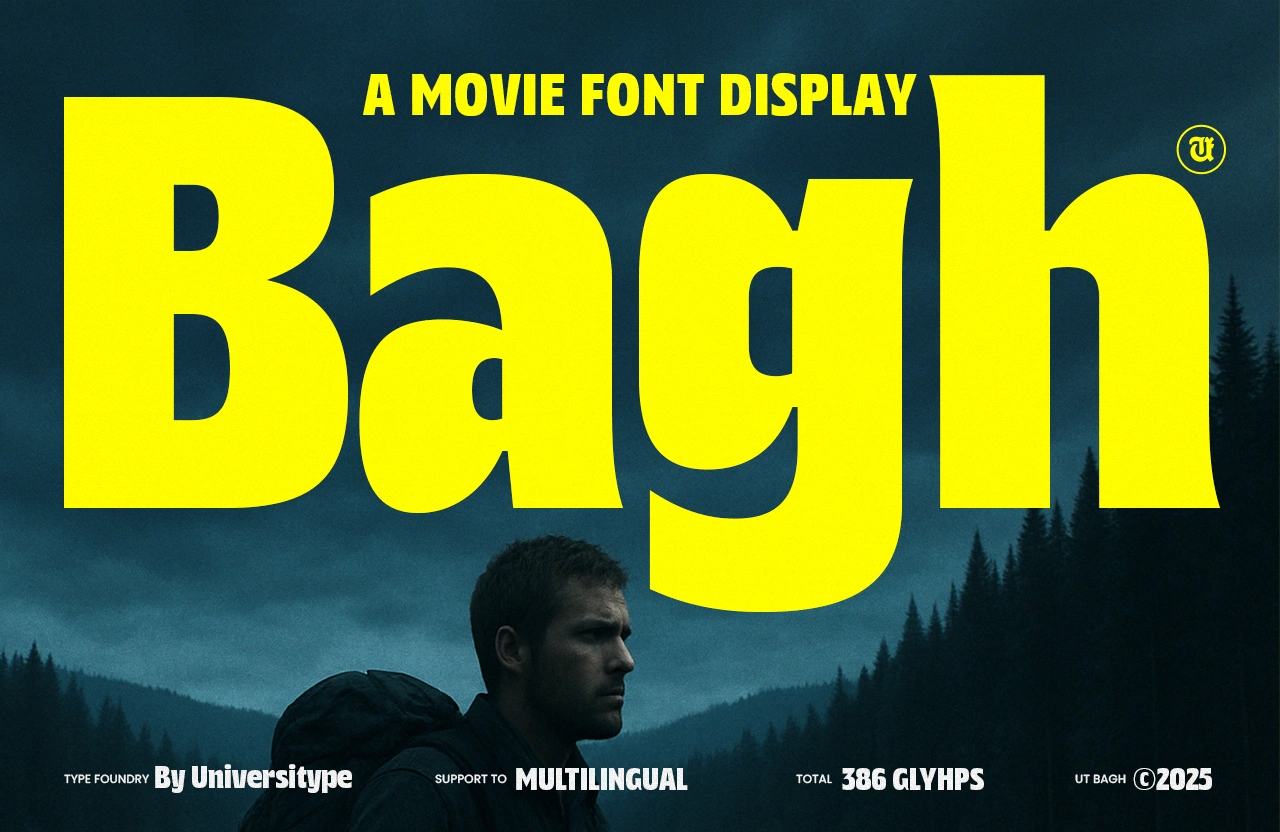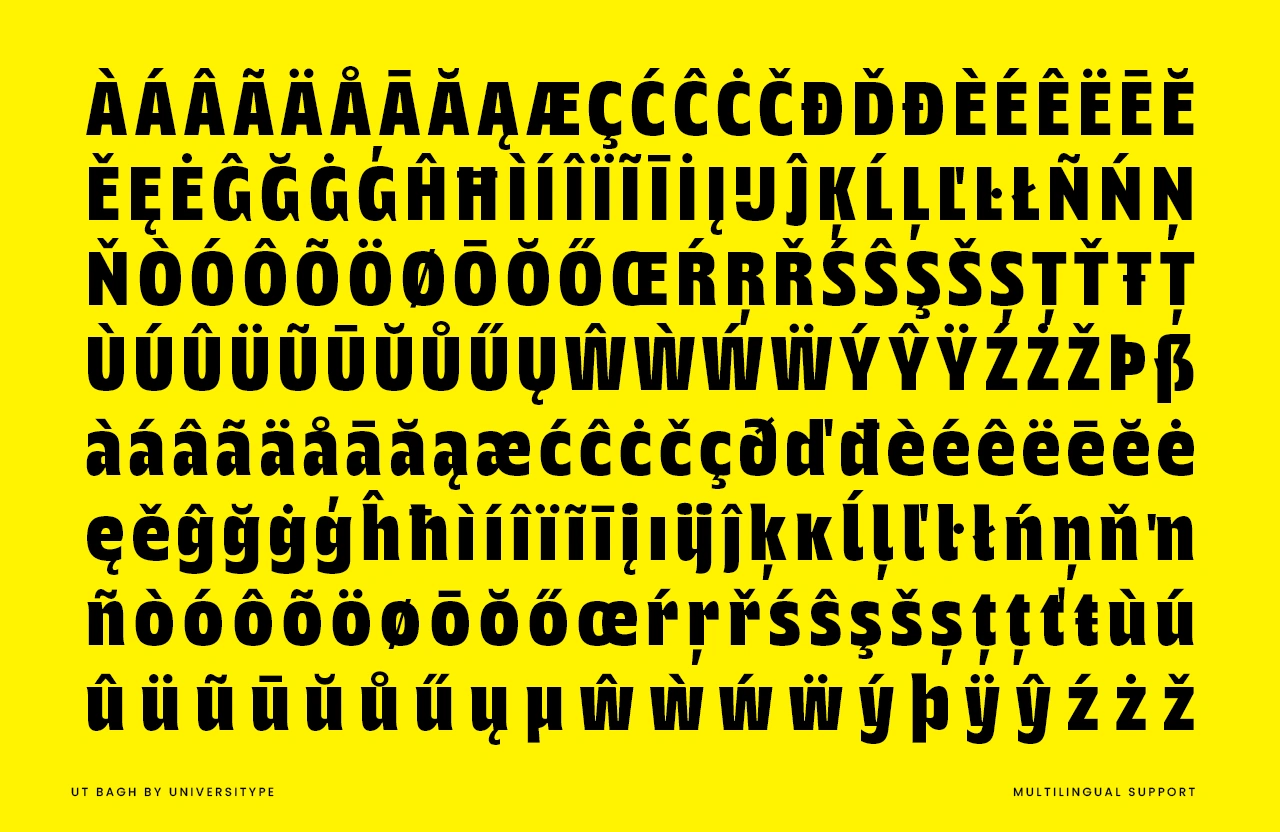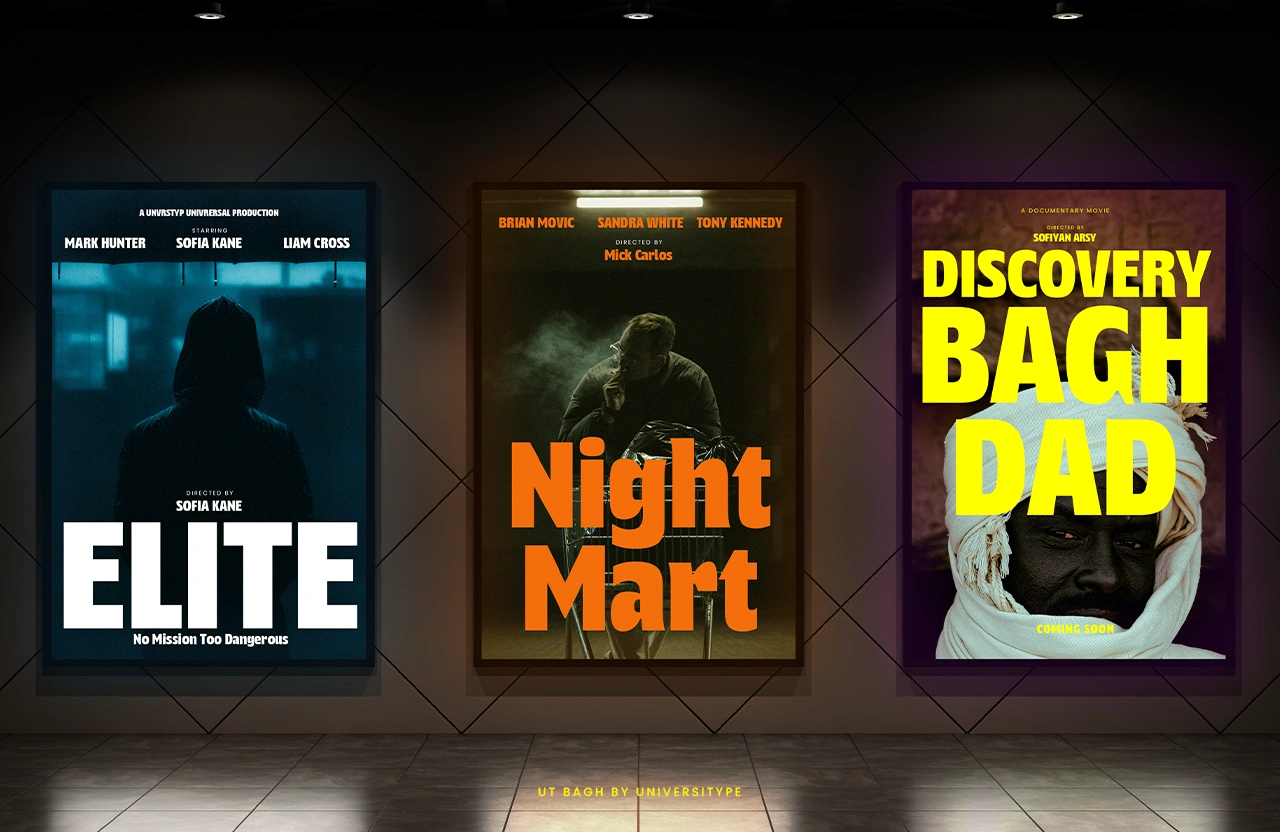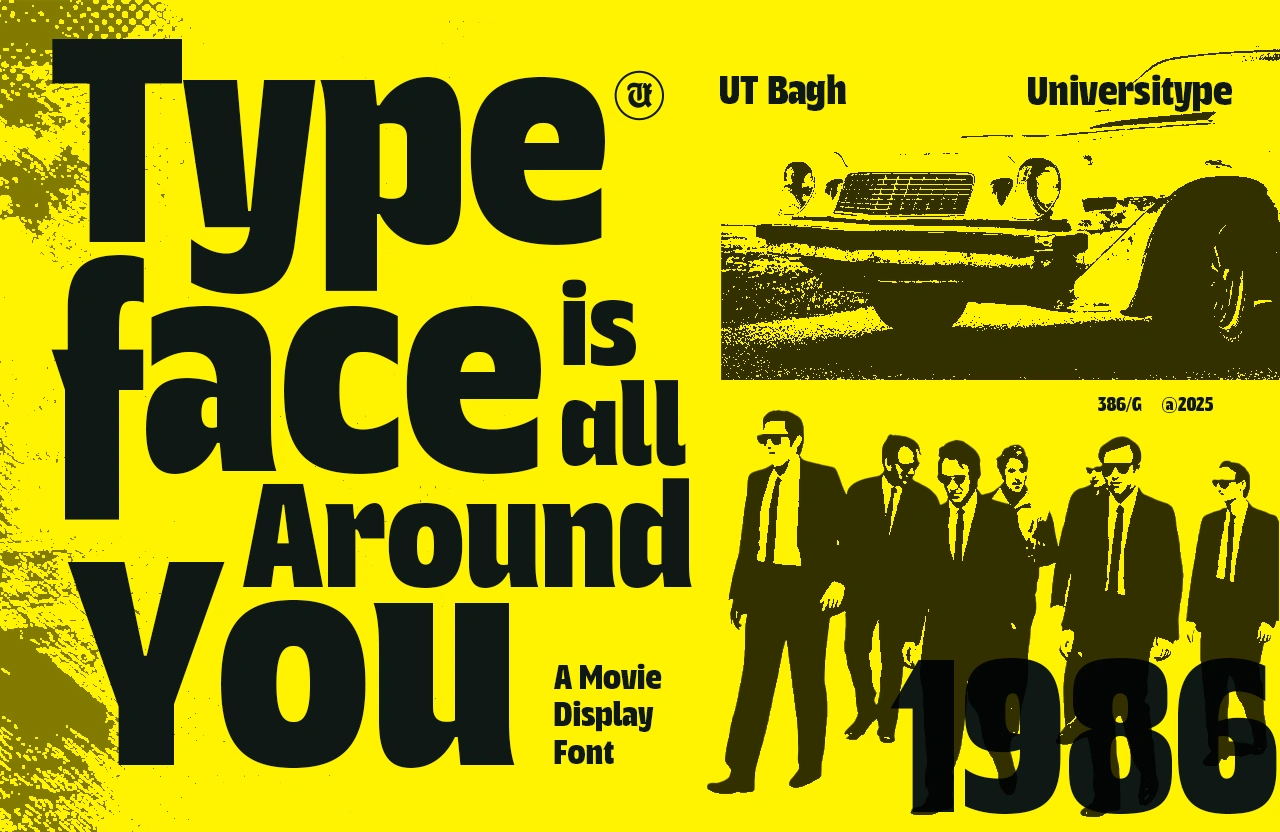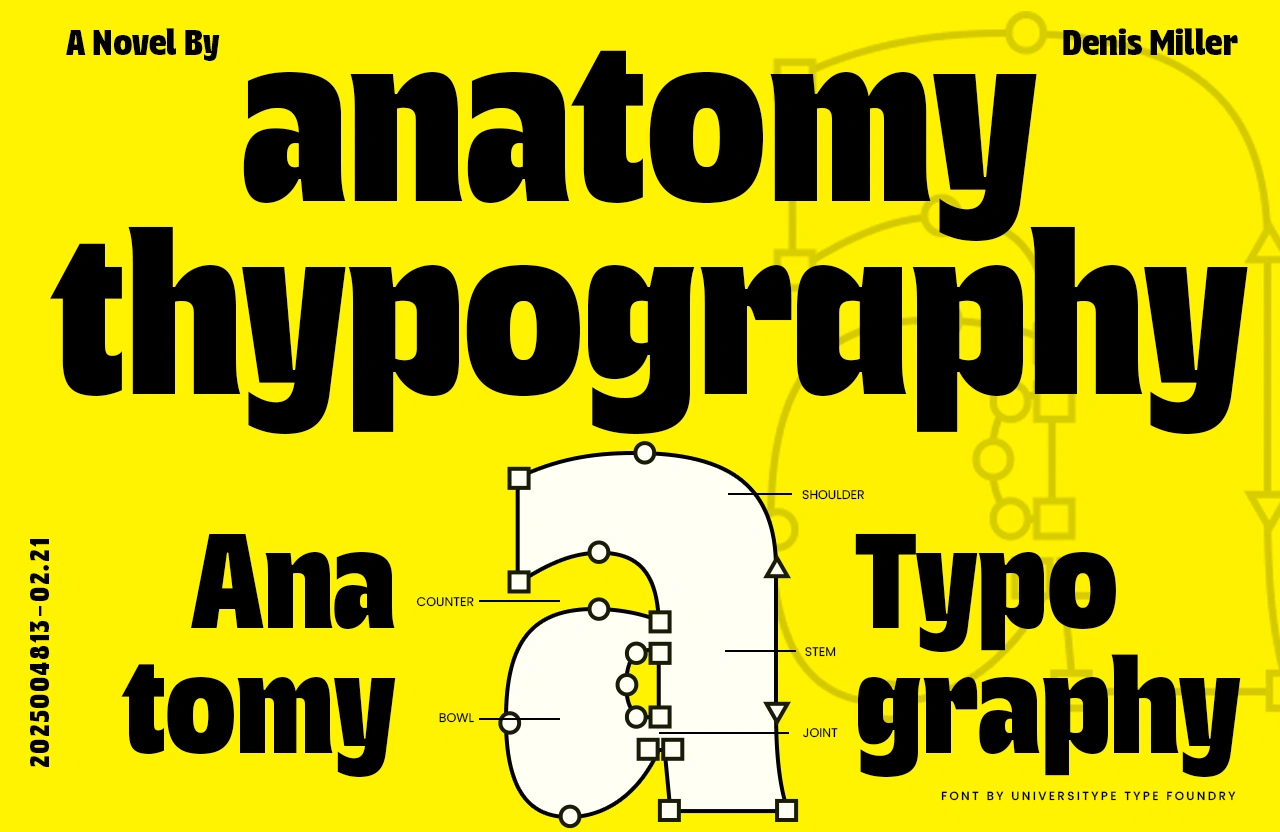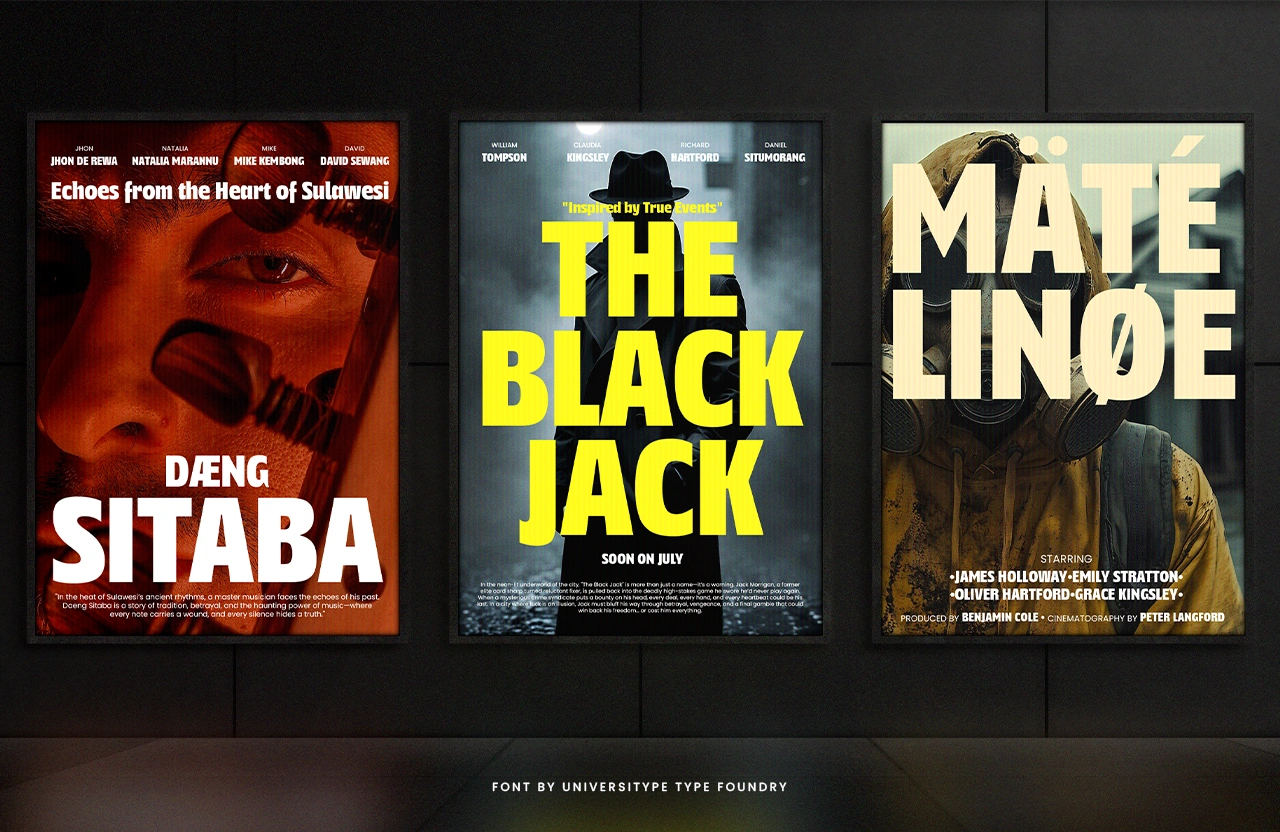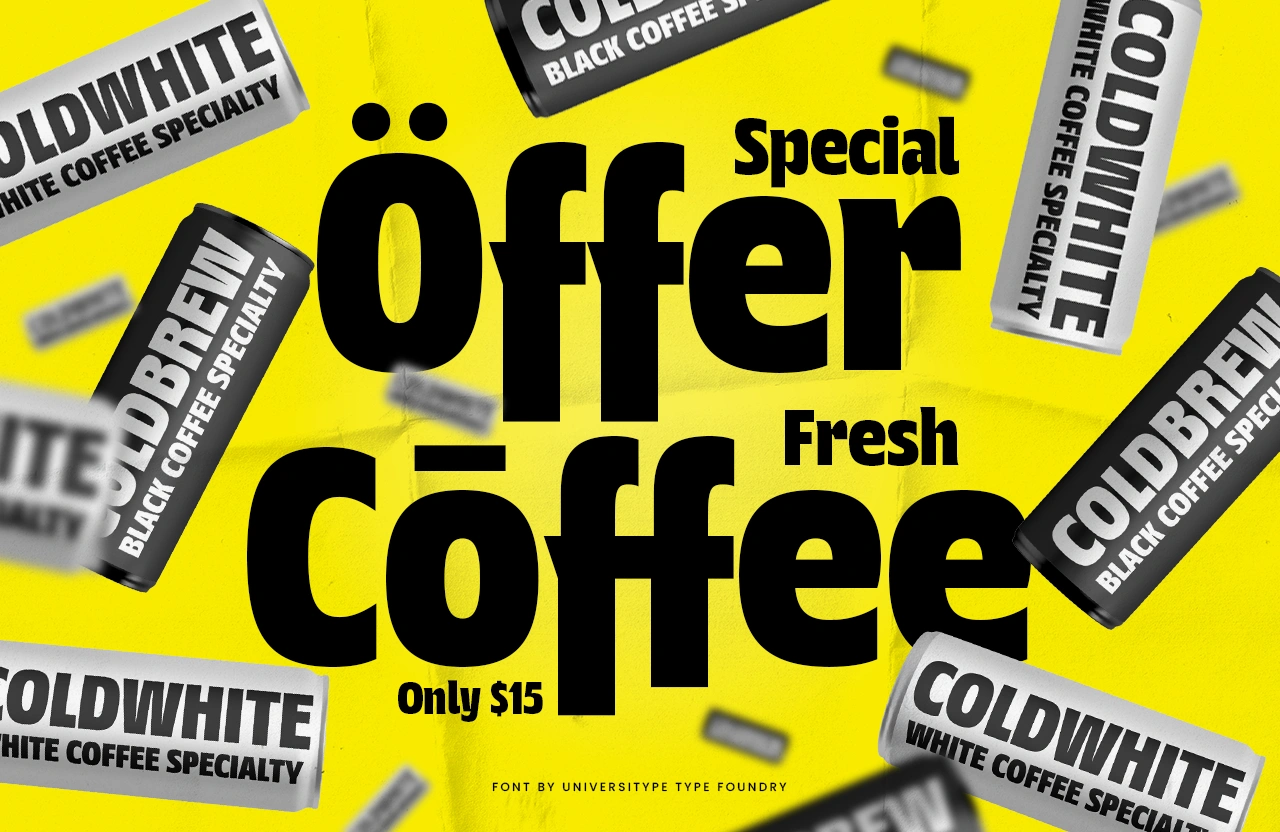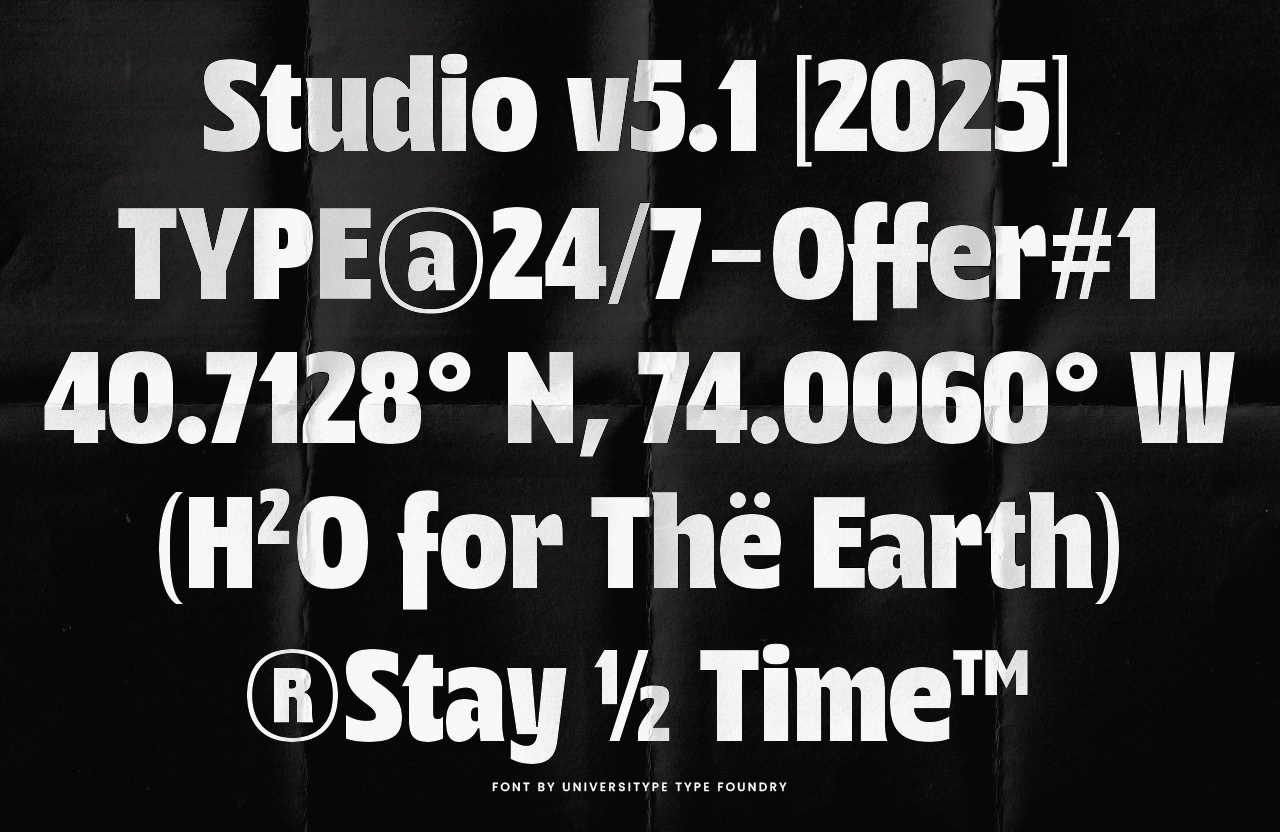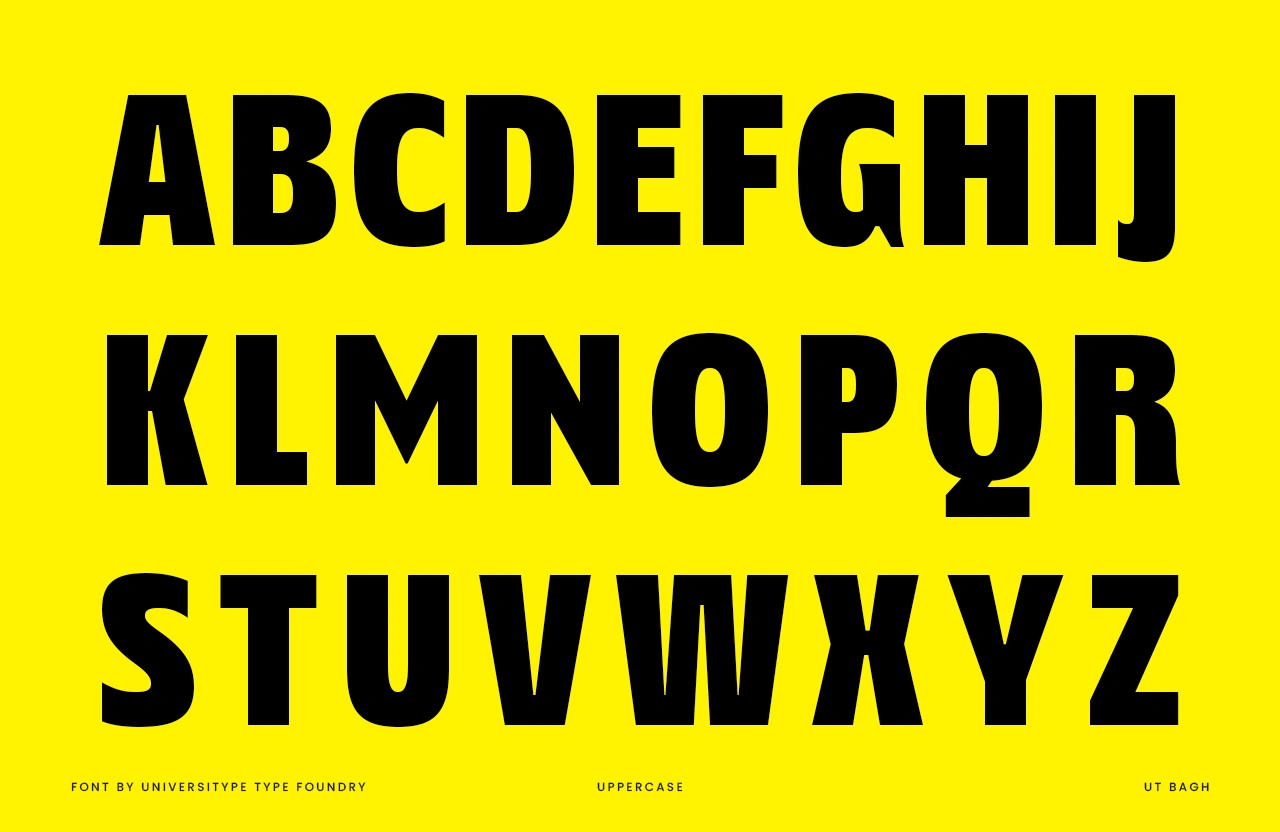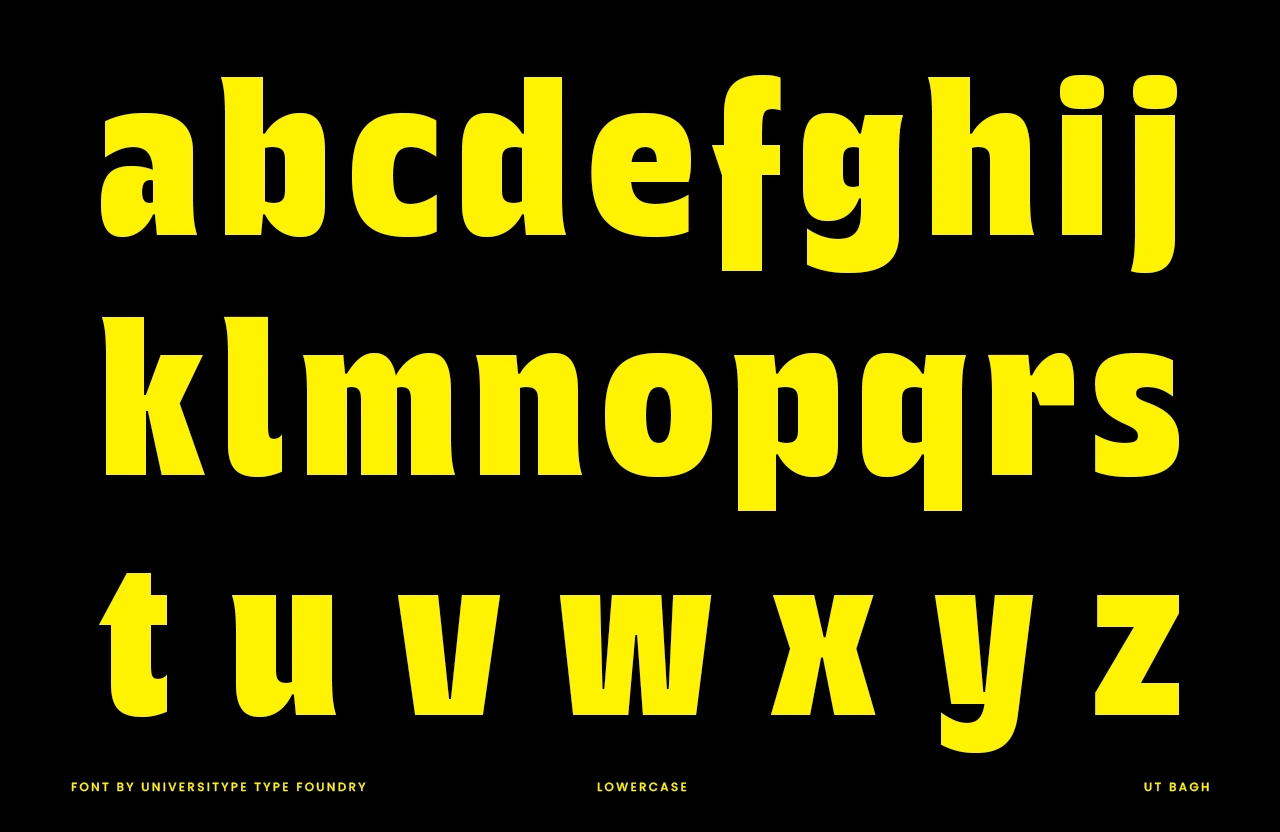
UT Bagh Display
Description
UT Bagh is a neo-grotesk sans-serif built with the big screen in mind. It’s clean, modern, and confident—crafted to be just as striking on a four-story movie poster as it is in the rolling end credits of your favorite film. With its wide apertures, generous counters, and steady rhythm, UT Bagh brings clarity and character to any project. Think of it as your typographic IMAX lens: bold, versatile, and always in focus.
UT Bagh – Wide, Sharp, Cinematic
Product Description
UT Bagh is a neo-grotesk sans-serif built with the big screen in mind. It’s clean, modern, and confident—crafted to be just as striking on a four-story movie poster as it is in the rolling end credits of your favorite film. With its wide apertures, generous counters, and steady rhythm, UT Bagh brings clarity and character to any project. Think of it as your typographic IMAX lens: bold, versatile, and always in focus.
Target Audience
This font is designed for creatives who think globally—filmmakers, brand designers, digital creators, and studios who need a typeface that not only looks cinematic but also works across multiple languages and platforms. Perfect for anyone wanting a type family that feels modern, professional, and effortlessly international.
Key Features
• Large x-height and open forms for ultimate readability.
• Smart ligatures (ff, fi, fl) to keep text blocks smooth.
• Tabular lining numerals, slashed zero, and barred 1 for technical precision.
• Multilingual support covering Latin-A/B, Cyrillic, Vietnamese, IPA, and more.
Inspiration Behind the Design
UT Bagh was born from the world of cinema. Its structure nods to 1950s Swiss poster typography, but it’s updated for today’s digital age—where type needs to shine on giant screens, tiny phones, and everything in between. The subtle flicks in the tails, the flat apexes, and the cinematic proportions all capture the feel of motion, light, and storytelling. It’s a typeface that doesn’t just speak—it performs.
Usage Suggestions
Use UT Bagh wherever you need impact and clarity:
• Film titles, trailers, and end credits.
• Streaming and OTT interfaces.
• Branding for fashion, travel, or tech companies with global audiences.
• Editorial layouts and campaign visuals.
It pairs beautifully with neutral workhorses like Inter or Source Sans, or with a confident serif like Tiempos Headline for extra contrast.